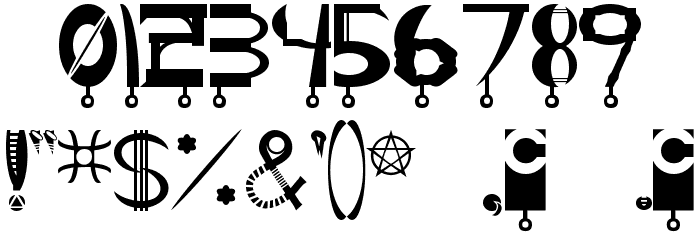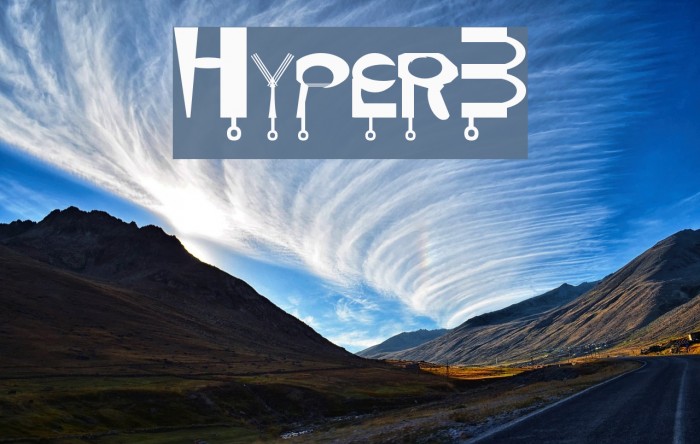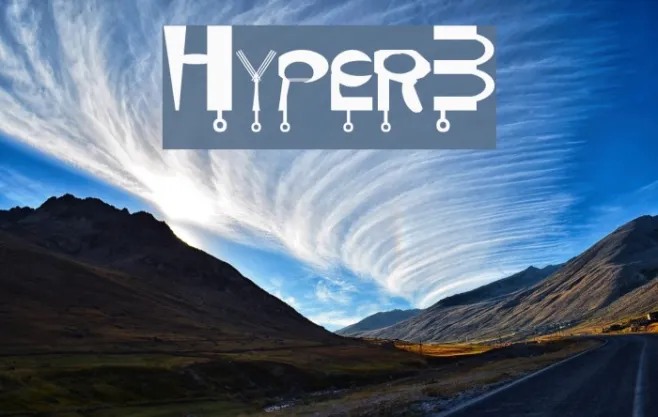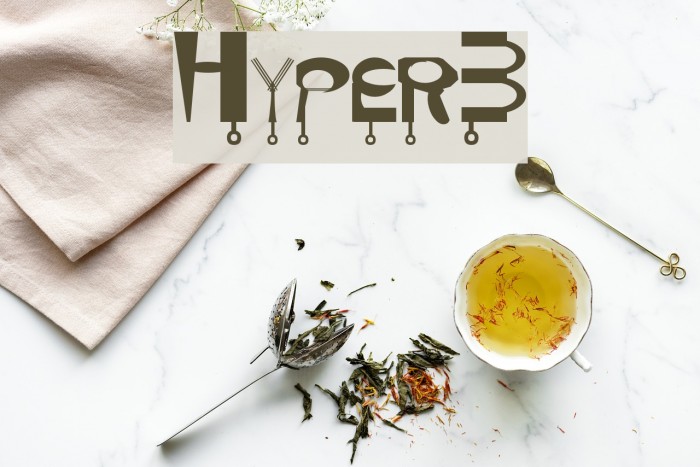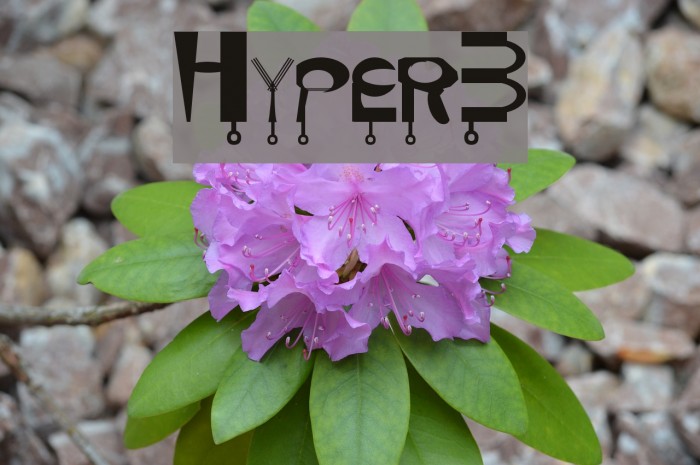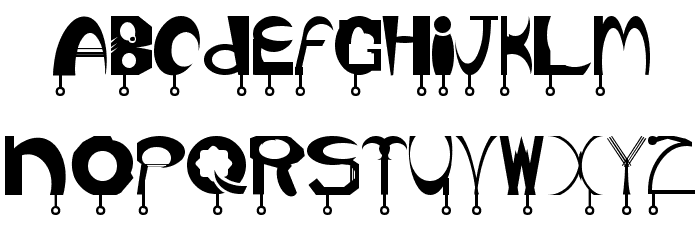
Hyper-3 Font
Hyper-3 Description
This font exhibits a highly decorative and unique style, characterized by bold, geometric shapes and intricate detailing. Each letter is adorned with small circular elements, giving it a whimsical and playful appearance. The uppercase and lowercase letters maintain a consistent design theme, with exaggerated curves and sharp angles that create a striking visual impact. Numbers and special characters follow the same design principles, ensuring a cohesive look across all elements. The font's distinctiveness makes it ideal for creative projects that require a bold statement.
| Proposed Projects | Ideal for posters, album covers, branding, and any project that requires a bold, artistic touch. |